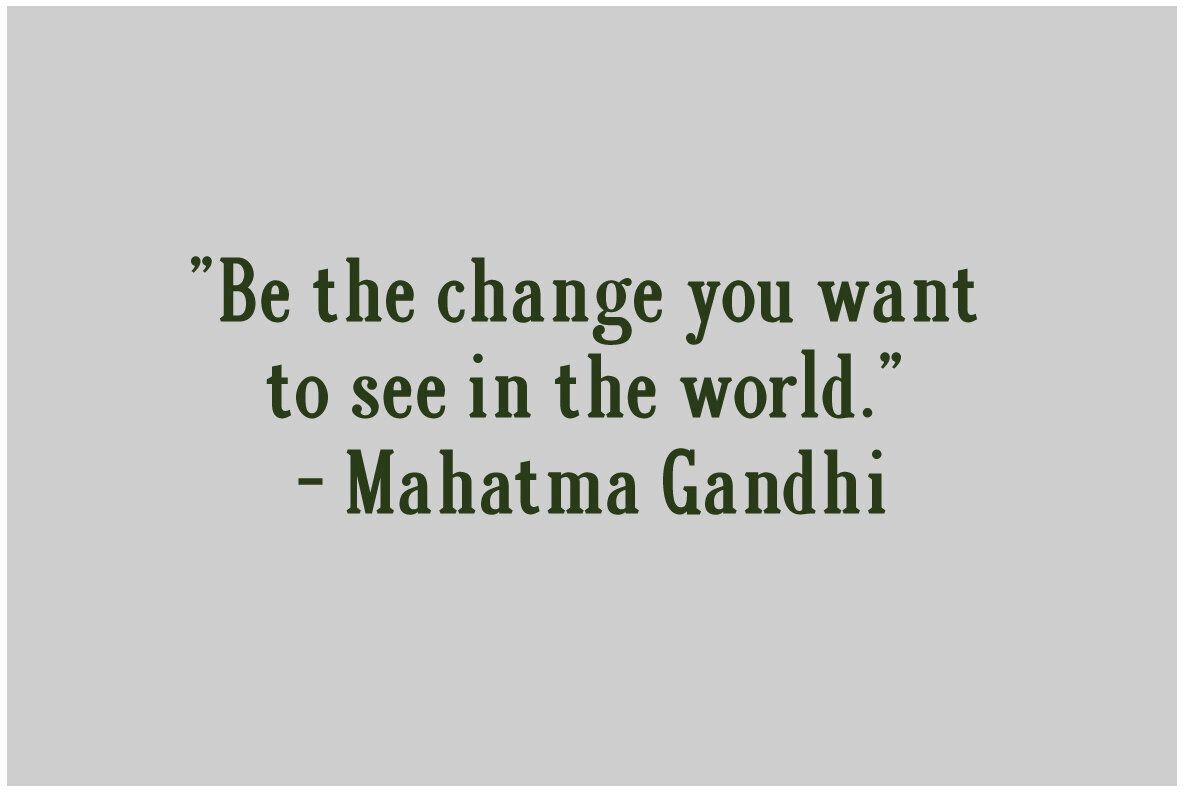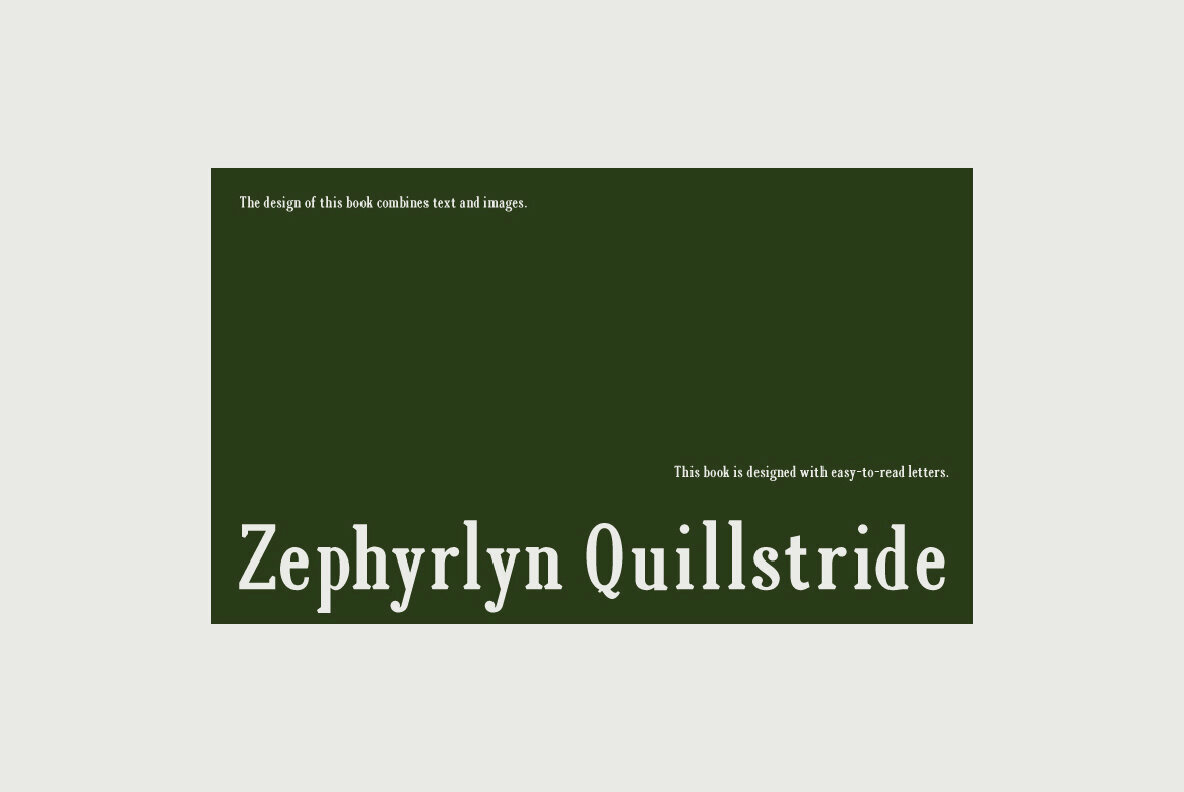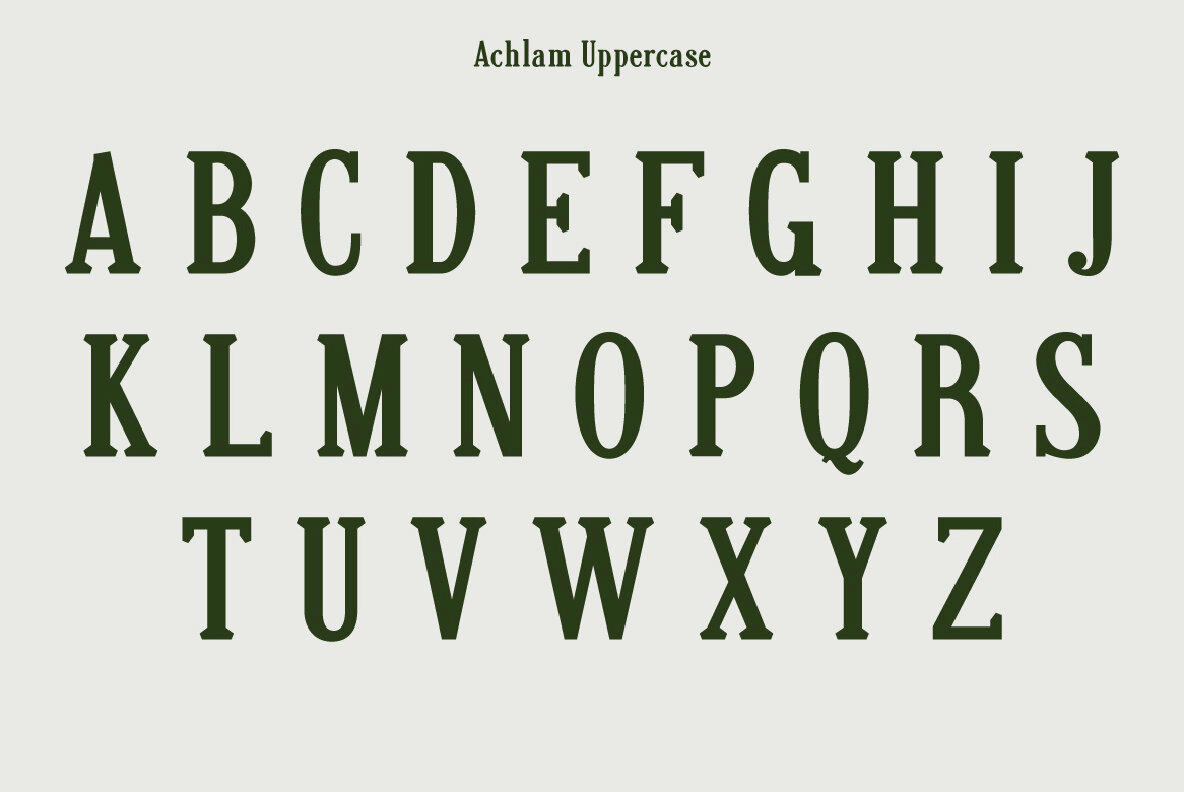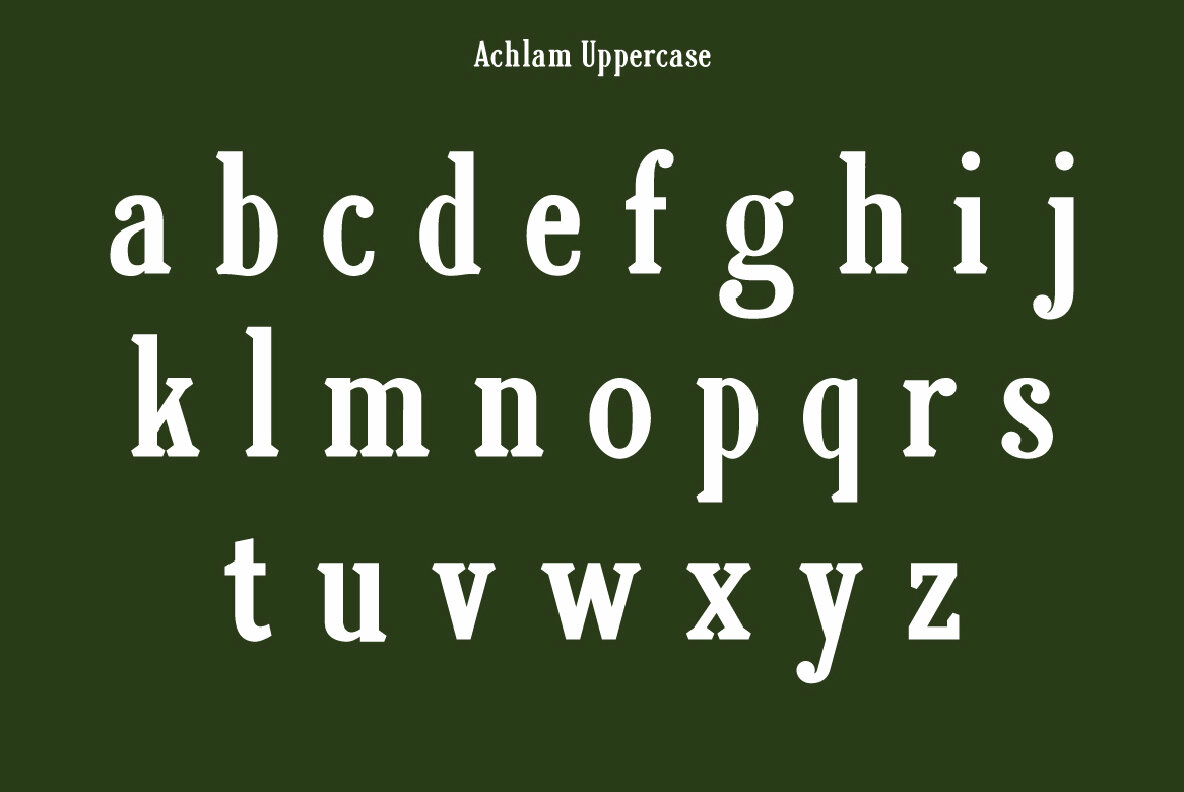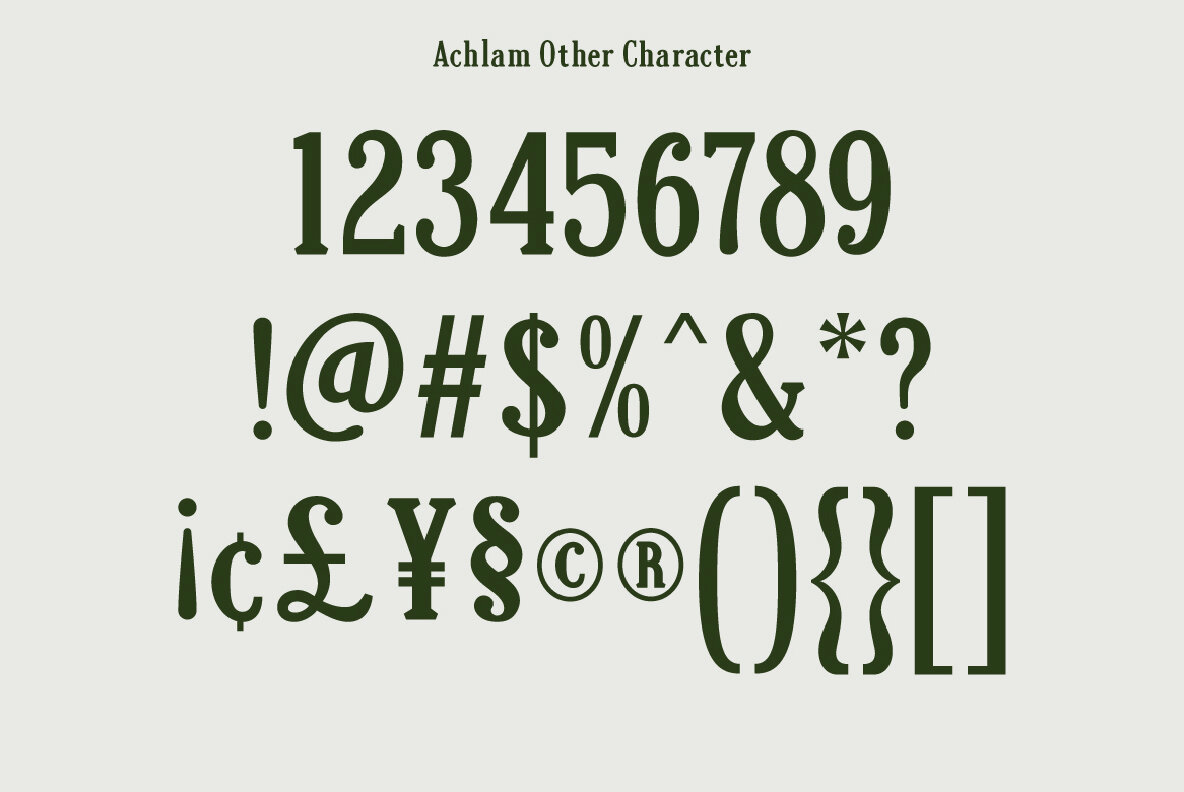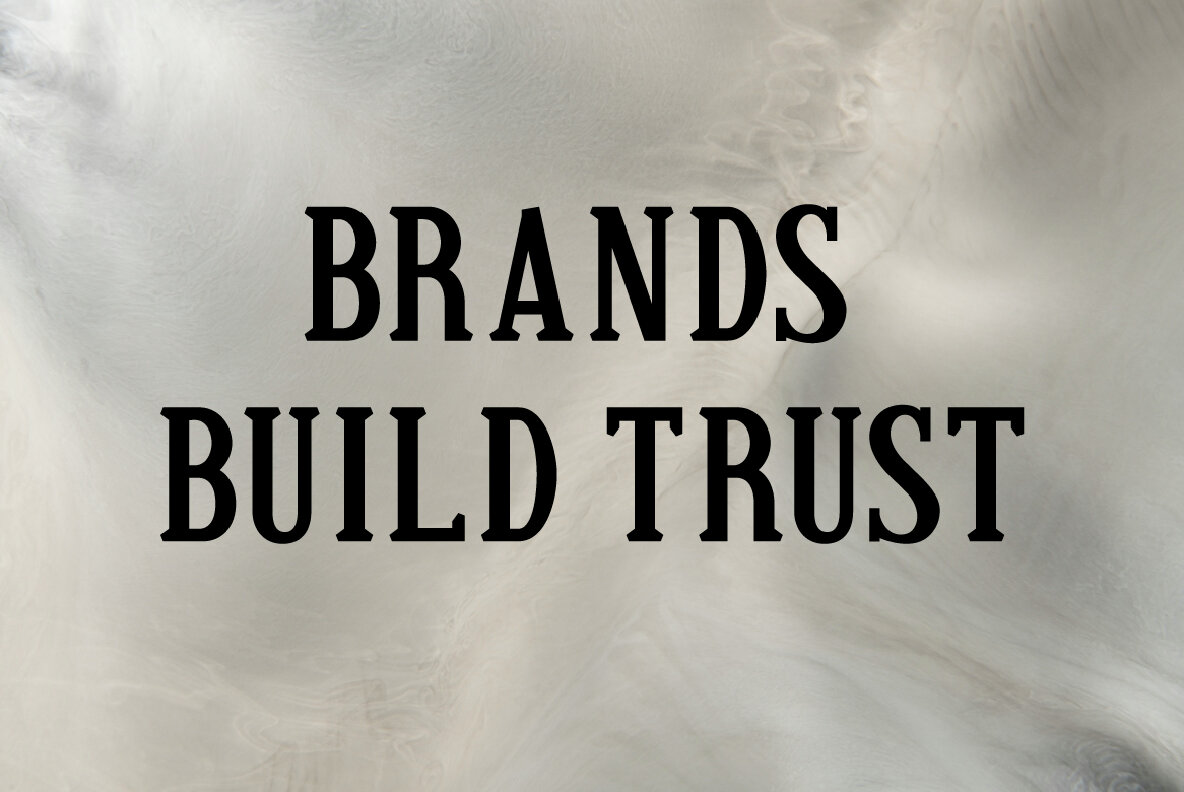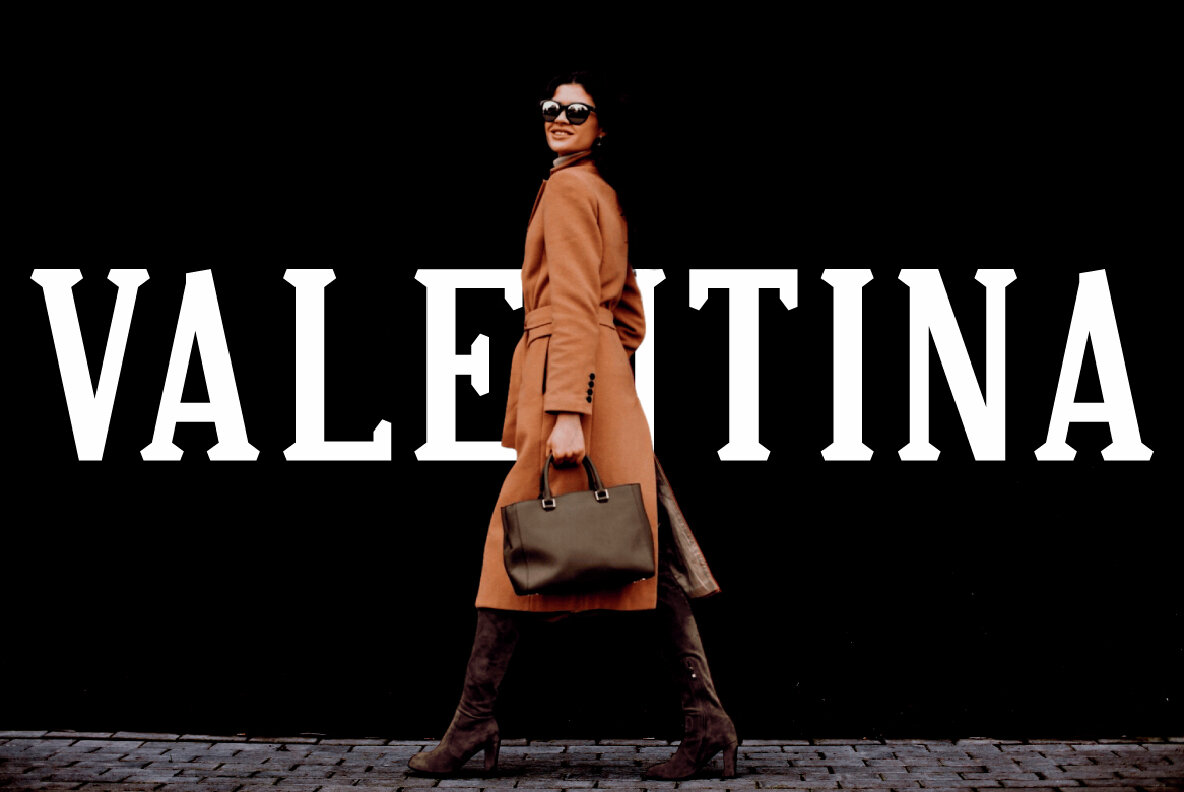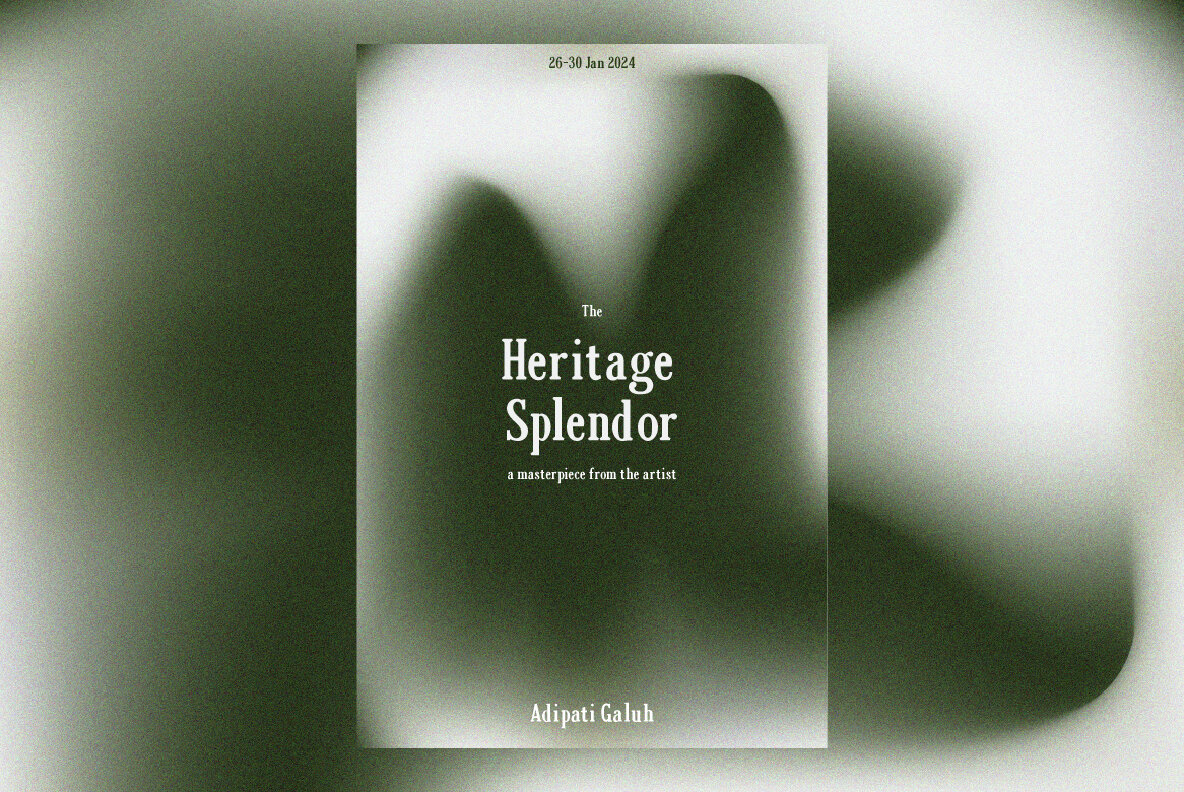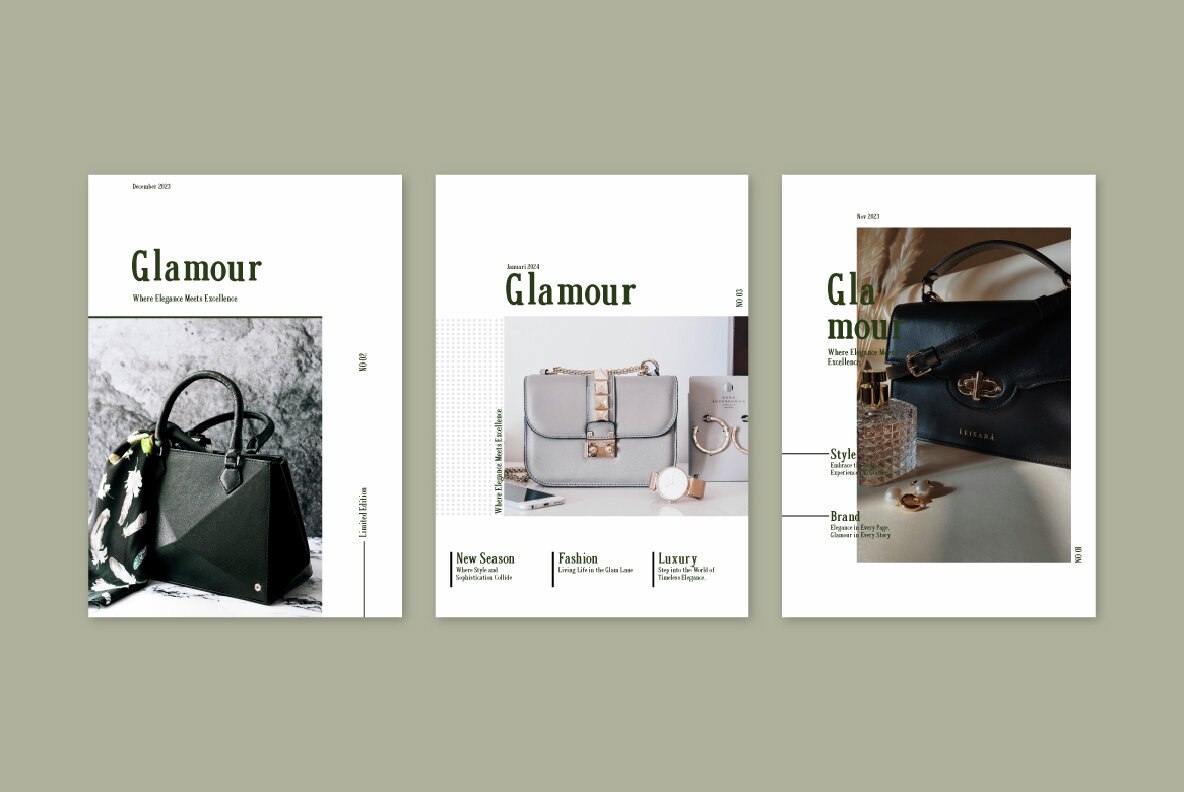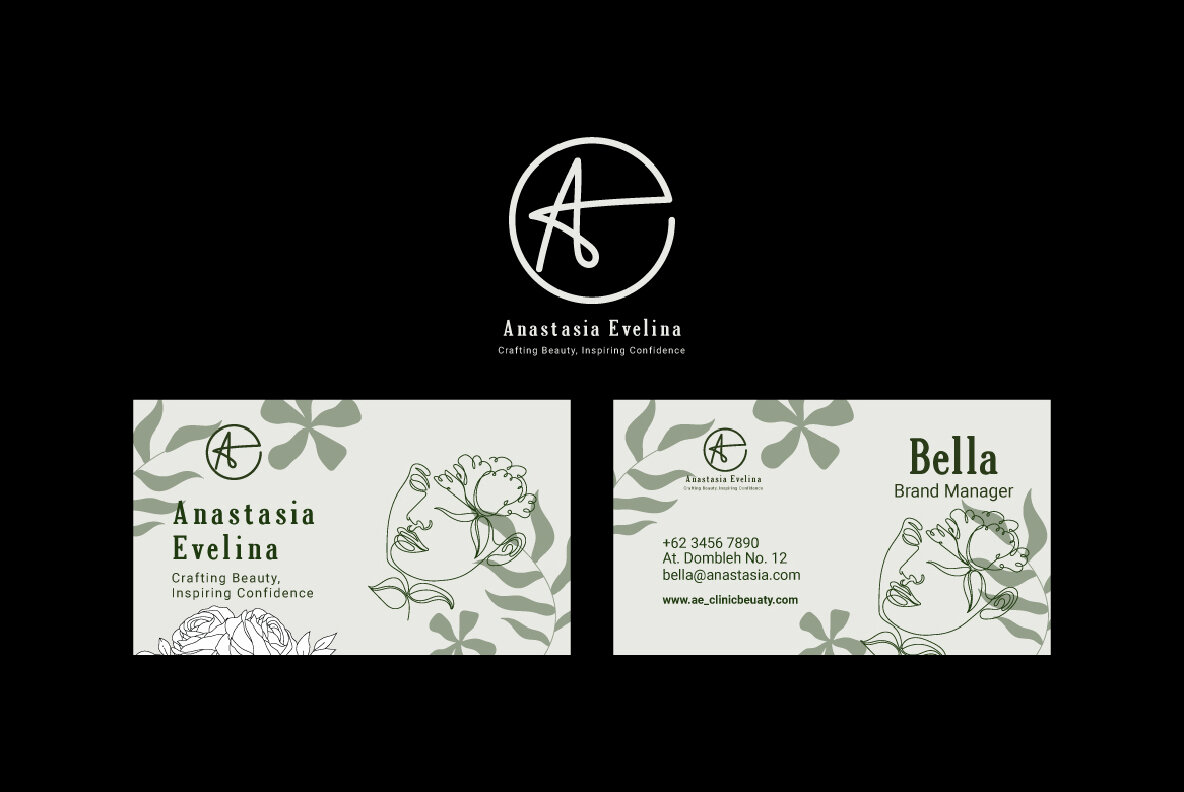
Achlam Font
Achlam Regular
Achlam is a serif font that seamlessly combines classical design beauty with modern elements. This font exudes a clean and elegant aesthetic, making it suitable for various design purposes, be it for print or digital displays. Achlam stands out with a unique feature at its feet, setting it apart from traditional serif fonts. Its feet are designed with a contemporary touch, adding a fresh modern nuance to the font. The sharp lines and smooth angles at the bottom of its characters create a unique aesthetic, making Achlam the perfect choice for those seeking something distinctive in the world of serif fonts. With its elegant design, clean simplicity, and a modern twist, Achlam is the perfect choice for design projects that require a serif font style that remains up-to-date and unique.Achlam: A Blend of Classical Elegance and Modern Design
Unique Features
Application and Style